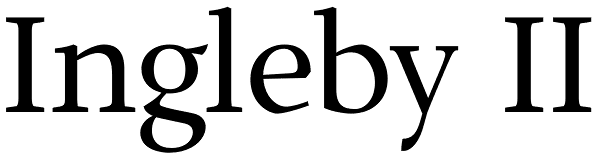
Ingleby II
Ingleby II is a typeface with firm roots in the classic stroke of the pen. The digital design of Ingleby II is legible and distinct in small sizes as well as expressive when used for larger display design. It contains small caps, an innovative range...